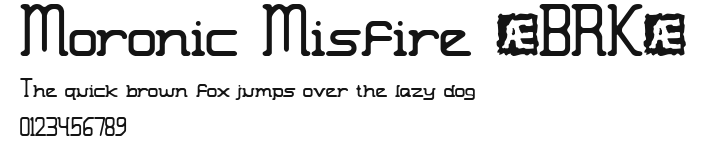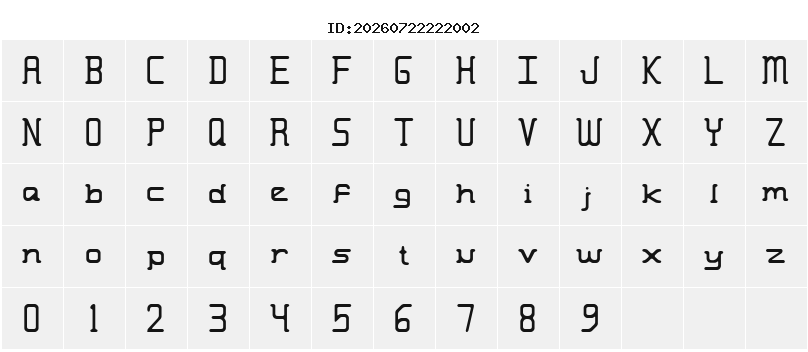
• Font Name: Moronic Misfire (BRK)
• Full Font Name: Moronic Misfire (BRK)
Moronic Misfire (BRK).ttf is a modern, elegant sans-serif font designed for ultimate readability and visual harmony. Perfect for branding, headlines, web design, and print materials.